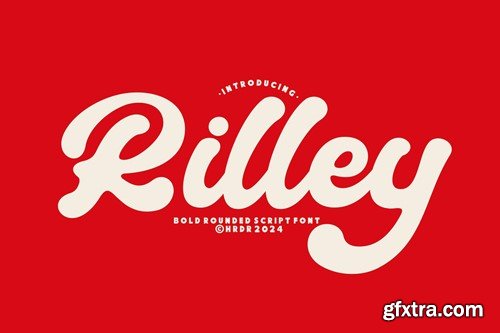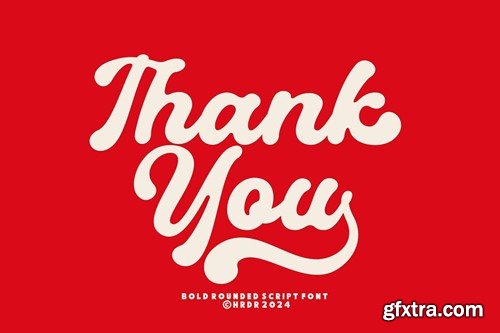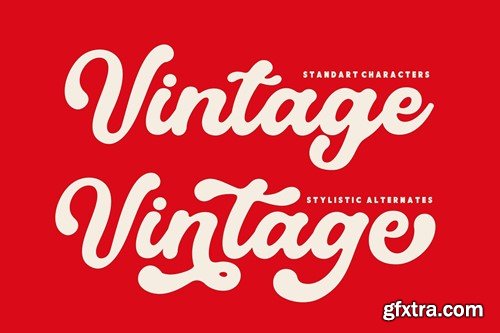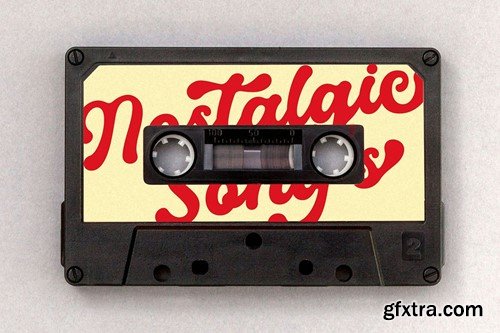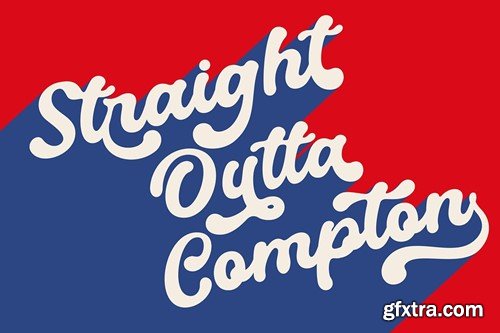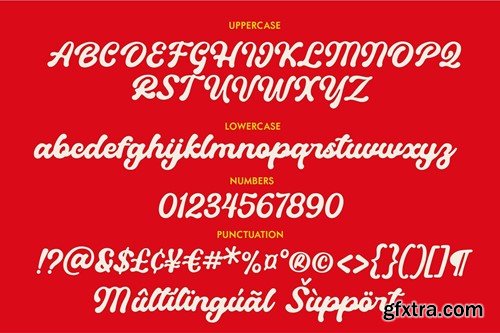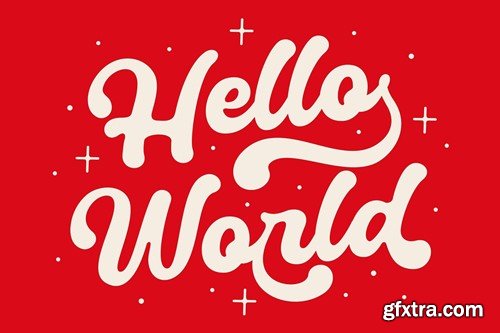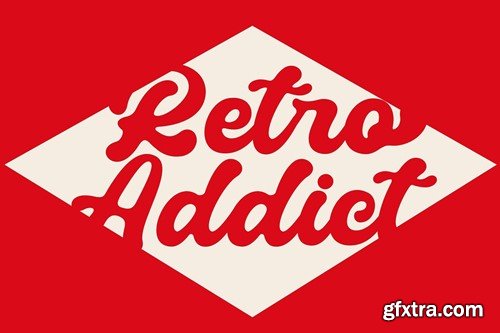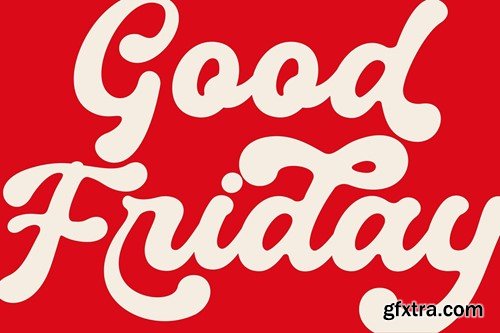
Rilley - Rounded Bold Font
Meets Rilley, A new rounded Bold on a script typefaces It generates a lot more fun, more trendy and Beauty. perfect for crafting, branding, Logo, invitation, stationery, wedding designs, social media posts, advertisements, product packaging, product designs, label, Posters, photography, special events, or anything. Font Features : Rilley files with OTF and TTF file and support PUA Encoded font files for use with software that doesn't support OpenType features such as Silhouette, Inkscape, etc. Thank You !